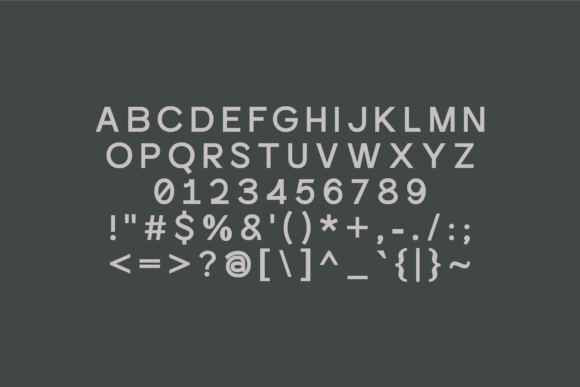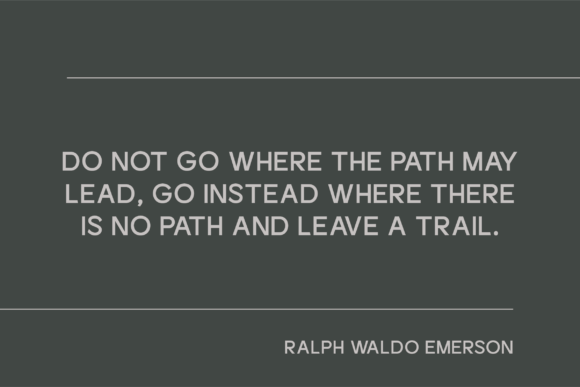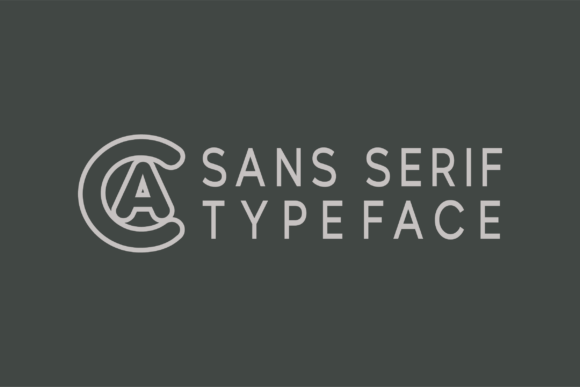
The Perfect Typeface for Your Next Creative Project
Remember that moment when you’re brainstorming ideas for a project, and everything just clicks into place? You feel a rush of excitement and your creative juices start flowing. For designers, that feeling is all too familiar, especially when we stumble upon the perfect typeface to bring our vision to life. That’s exactly what happened when we discovered the Dewdropia Font – a modern, classy sans serif typeface that’s about to become your new go-to.
With its extensive character set and versatile design, the Dewdropia Font is perfect for a wide range of applications, from logos and weddings to advertisements and magazines. As a designer, you’ll appreciate the value that this font brings to your work, elevating your projects to the next level with its sleek and sophisticated look.
Dewdropia Font Key Features
- Font Family: Dewdropia is a sans-serif font family with 12 styles, including Regular, Italic, Bold, Bold Italic, and more.
- Size and Resolution: The font is designed to be highly legible at various sizes, with a minimum recommended size of 10pt and a maximum recommended size of 72pt. The font is optimized for print resolution (300 DPI) and screen resolution (72 DPI).
- Unique Characteristics: Dewdropia features a unique blend of modern and vintage design elements, with subtle rounded edges and a distinctive x-height that makes it highly readable.
- Language Support: Dewdropia supports a wide range of languages, including Latin, Cyrillic, Greek, and many others, making it a versatile font for global use.
Dewdropia Font Review
Overall, I was excited to dive into the Dewdropia Font, but my experience was a bit of a mixed bag. Here are my thoughts:
- ✨ The font’s dreamy, ethereal quality is a great asset for creative projects, especially those with a whimsical or magical theme.
- ✨ The font’s legibility is decent, especially at larger font sizes. However, it may not be the best choice for body text.
- ⚠️ The font’s irregularity can make it difficult to read at smaller font sizes or in environments with low contrast.
- ⚠️ The font’s lack of consistency in letterform design may make it challenging to pair well with other fonts.
Overall, I think Dewdropia is a great choice for projects where you want to add a touch of fantasy or whimsy. However, it may not be the best fit for more practical or professional applications. With some careful planning and consideration of its limitations, I think Dewdropia can be a valuable addition to any designer’s toolkit.
Dewdropia Font is ideal for:
- Creative projects, such as invitations, posters, and social media graphics.
- Wedding and event planning, where a whimsical touch is desired.
- Children’s book illustrations and educational materials.
Alternatives to Dewdropia Font for Designers
Crimson Text is a serif font that is highly legible and suitable for body text. It has a warm, elegant feel that works well in both print and digital media. Use Crimson Text for lengthy articles, books, or other content where readability is a priority.
Compared to Dewdropia Font, Crimson Text has a more classic, timeless feel and is better suited for formal content. While Dewdropia Font is more modern and playful, Crimson Text is a solid choice for designers who need a reliable serif font.
Lato is a sans-serif font that is highly versatile and works well in a variety of contexts. It has a clean, modern feel that makes it suitable for both digital and print media. Use Lato for logos, headings, or other content where a modern, minimalist aesthetic is desired.
Compared to Dewdropia Font, Lato is more modern and sleek, with a focus on clean lines and minimal ornamentation. While Dewdropia Font has a more whimsical feel, Lato is a solid choice for designers who need a modern, versatile sans-serif font.